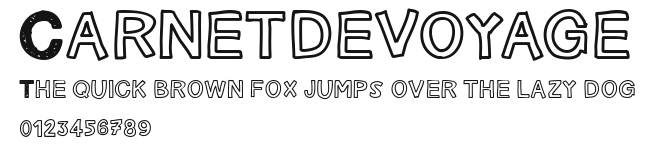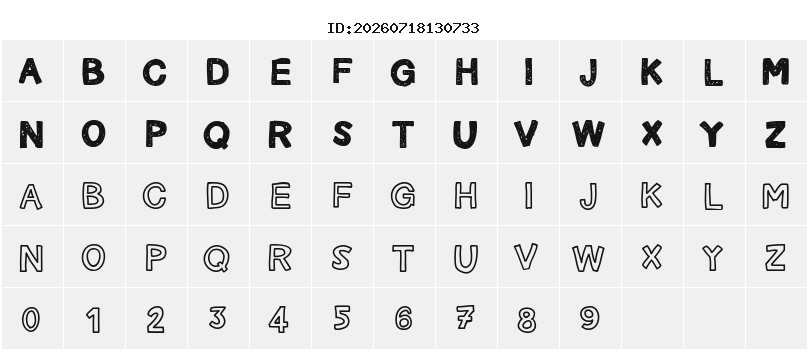
Carnetdevoyage Preview
• Font Name: Carnetdevoyage
About Carnetdevoyage.ttf
Carnetdevoyage.ttf is a modern, elegant sans-serif font designed for ultimate readability and visual harmony. Perfect for branding, headlines, web design, and print materials.